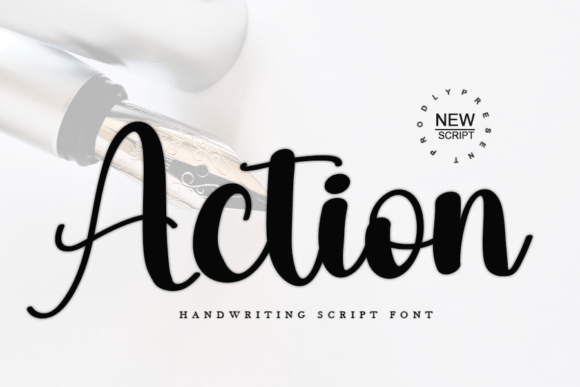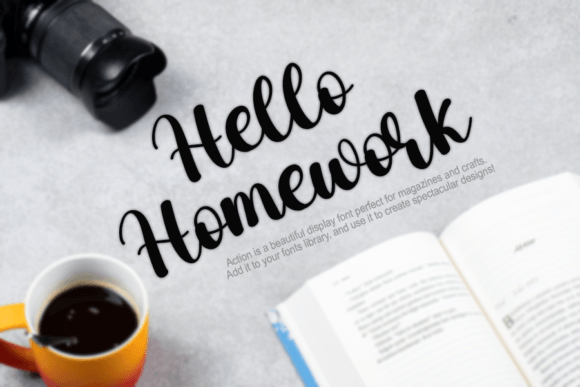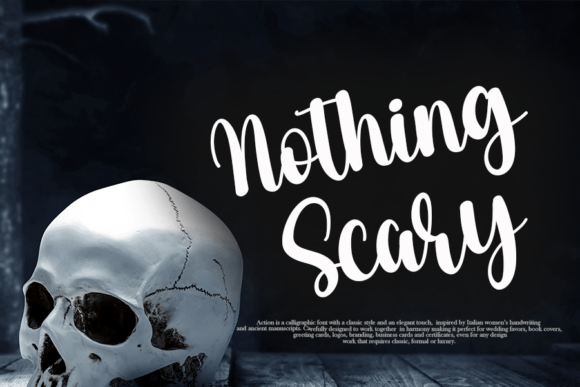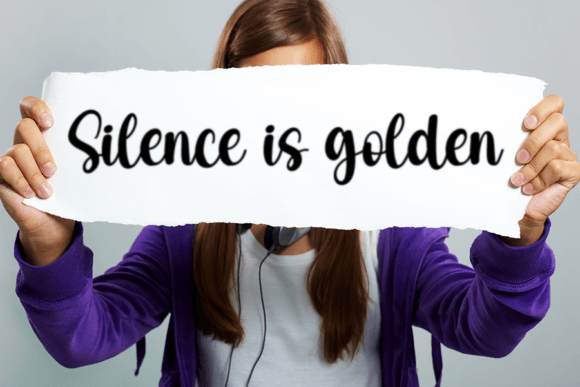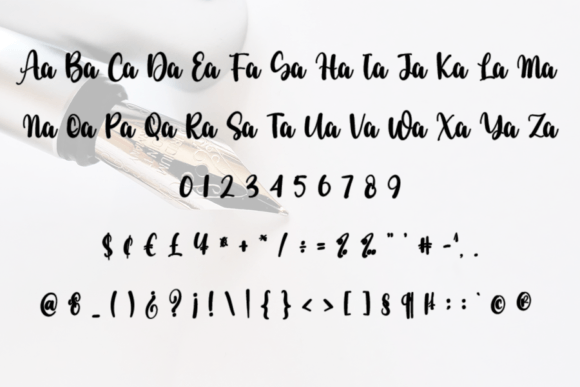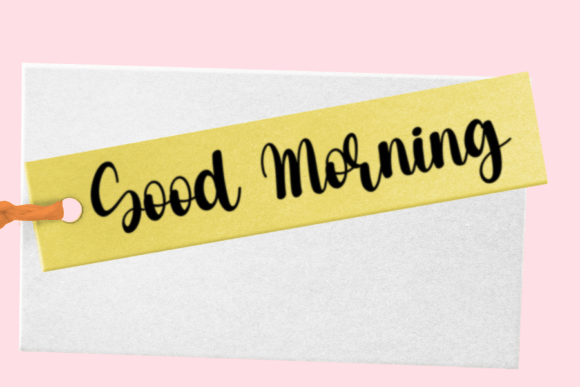
Action
About Action
Action is a neat and casual handwritten font. Whether you’re using it for crafts, digital design, presentations, or making greeting cards, this font has the potential to become your favorite go-to font, no matter the occasion!